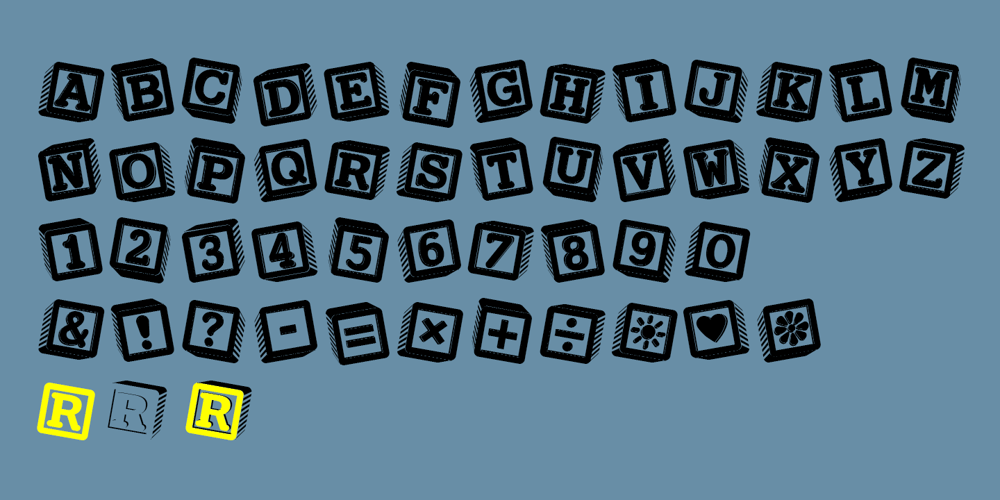
PIXymbols Baby Blocks Font Family was designed by Roger Vershen and published by Page Studio Graphics. PIXymbols Baby Blocks contains 1 styles and family package options. The PIXymbols™Baby Blocks font is designed to create both single color, and two-color titles or initials. Each package includes a document showing the full character set with key codes. The font package includes both TrueType and PostScript versions, and is available in either PC/Win or Macintosh format. In order to avoid serious problems, be sure not to install the same fonts in both TrueType and PostScript on the same computer. The font offers opportunities for various color treatments, with either single or double characters.